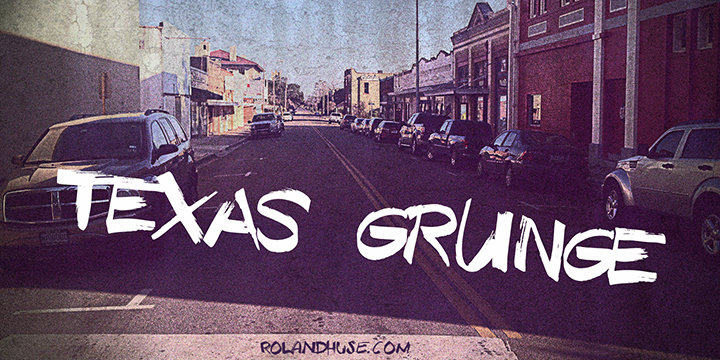
Preview and download Texas Grunge Font. Created by Runes & Fonts in Script Trash styles with Demo license.
TEXAS GRUNGE DEMO is a demo version of my hand drawn extra bold Sharpie font. For commercial use or full version and license please visit http://www.rolandhuse.com Please contatct me if you have any questions or feedback. You MAY NOT sell this font or claim them as your own. You MAY NOT edit or rename this font. You MAY NOT redistribute this font. Thank you & I hope you like this font, Roland http://www.rolandhuse.com https://www.facebook.com/pages/Runes-And-Fonts/123221817784772 |